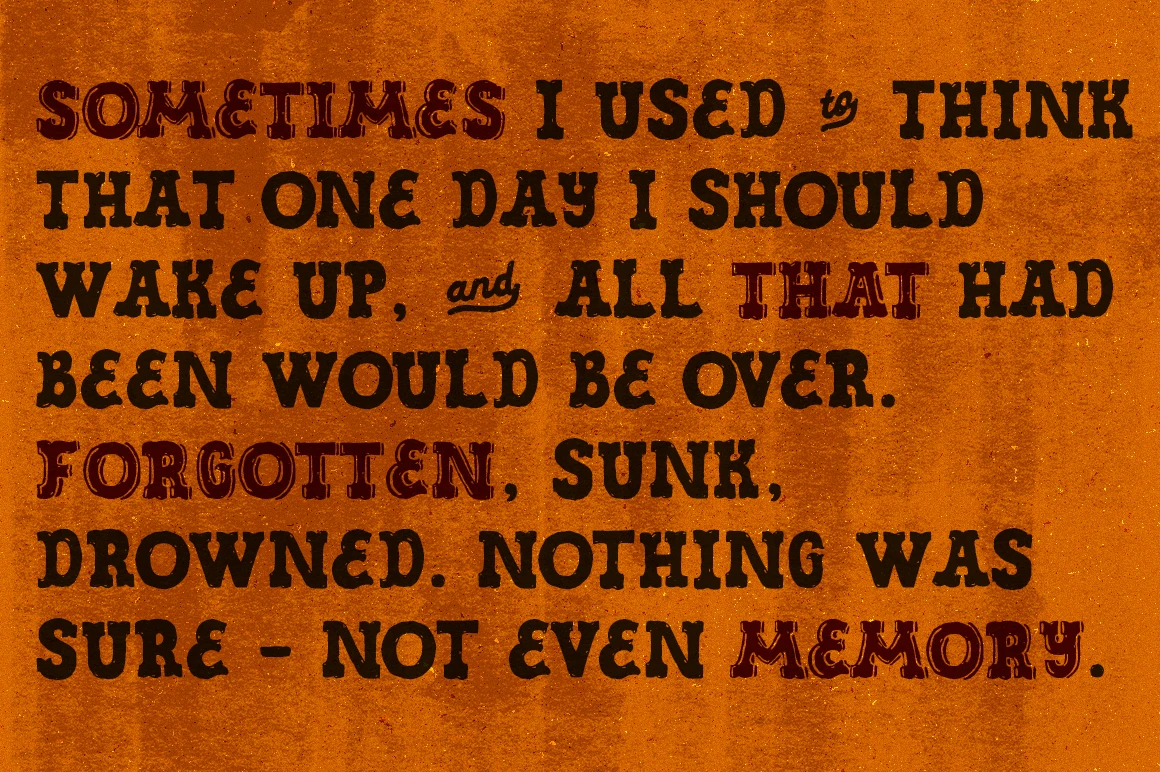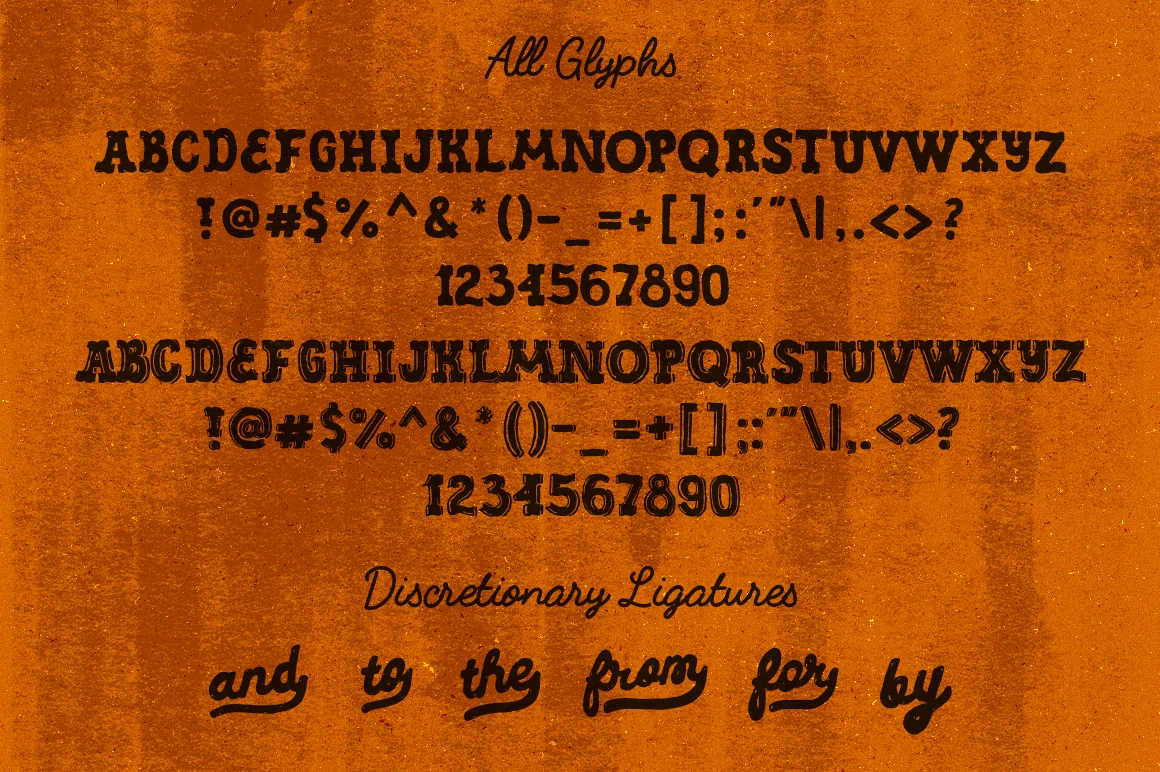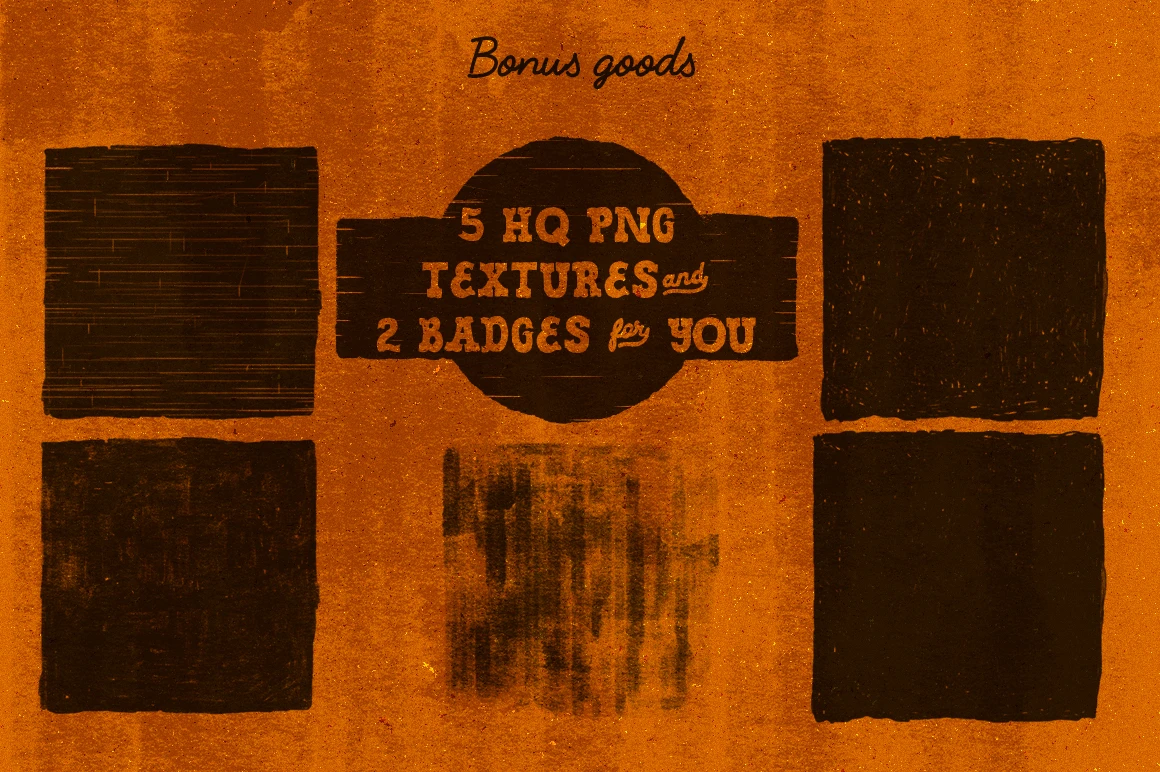
Forest Trail • 2 fonts
The Forest Trail is a hand-drawn display font inspired by Jack London’s stories and classic outdoor gear. Comes in two styles with six discretionary ligatures for added character. Designed to bring a rugged, vintage feel to any project. Great for business cards, posters, t-shirts, and more. Perfect for designs with a hiking, adventure, or heritage vibe.
• Discretionary Ligatures
Styles included • Regular • Shadow